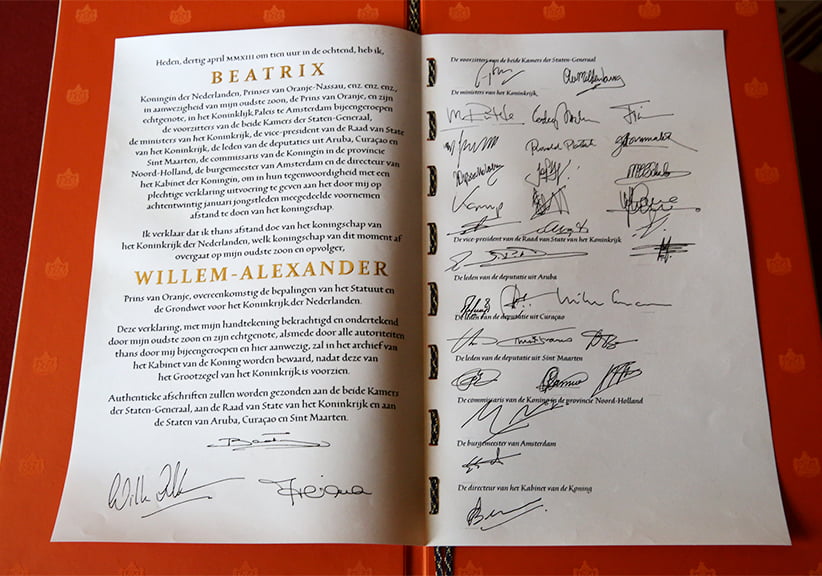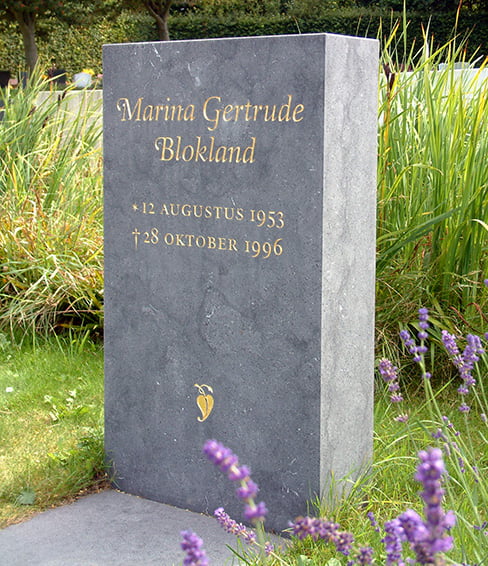
![]() Teaching in Museum Plantin-Moretus | Frank E. Blokland (Leiden, 1959) studied Graphic and Typographic Design at the Royal Academy of Art (kabk) in The Hague from 1978 to 1983. As a student, he set up the Letters] working group, of which many now well-known Dutch type designers were members. Blokland’s ideas about typography are clear: ‘Typography means more than bringing order to the passing on of information; it means elevating to the sublime the mould in which the process of passing on is cast.’ | ||||||||||||||||||||||||||||||||||||
![]() Bulthuismonument (1986) | |||||||||||||||||||||||||||||||||||||
In 1985, Blokland was one of the winners of the annual type-design competition of the United States-based company Chartpak and his typeface Bernadette was published as a dry-transferfont by this company. A year later, he designed the Bulthuis Monument (Bergum, Friesland), including the lettering, on behalf of the æsthetic-design department of the Dutch Post. | |||||||||||||||||||||||||||||||||||||
![]() House number chiselled in bluestone | |||||||||||||||||||||||||||||||||||||
![]() Bluestone gravestone finished with gold leaf | |||||||||||||||||||||||||||||||||||||
Paperweight (design for Sem Hartz) | |||||||||||||||||||||||||||||||||||||
Blokland wrote the book for the television course Calligraphy, the Art of Writing in 1990; 16.000 copies of this book went over the counter. Furthermore, since the eighties he has written approximately 150 articles on type design and font production for various graphic and design magazines, such as Compres, Pers, PrintBuyer, Hamburger Satzspiegel, and Page.
Teaching first year students in the Graphic Design department of the kabk
Teaching type design to second and third year students in the kabk LetterStudio
Teaching calligraphy to second and third year students in the kabk LetterStudio
With a 19th-century type mould in Museum Plantin-Moretus
Talk during the annual academic meeting of the Plantin Institute in 2019
Presentation of an Expert class Type design diploma in 2019
Speech at the EcTd graduation ceremony in 2022 In 1995, Blokland was invited to lecture at the Plantin Society’s Plantin Institute of Typography in Antwerp. He taught the regular Saturday course and, for over 15 years, the Expert class Type design, shaping both the content and structure of which he designed. In close collaboration with his students, he spent much of his time in Antwerp researching the role of reproduction in the history of typography, as part of a unique educational program focused on standardization, systematization, and unitization in archetypal font production. On Sunday, September 21, 2025, he officially retired as senior lecturer from the Plantin Institute.
April 2013 Blokland designed the calligraphic lettering of H.M. Queen Beatrix’s Abdication Act. The letters on the act, in Humanistic Minuscule and Italic hand, with all their contextual letter variants, were written by Blokland and converted by himself into two digital fonts, Abdicatie Regular and Abdicatie Italic, using the dtl FontMaster tools. The text was subsequently silkscreened on parchment.
Abdication Act of Queen Beatrix (2013) On 11 October 2016 at 11:15 a.m. Blokland successfully defended his PhD dissertation On the Origin of Patterning in Movable Latin Type: Renaissance Standardisation, Systematisation, and Unitisation of Textura and Roman Type at Leiden University.
Promotion ceremony in the beautiful Senate Chamber of Leiden University Blokland’s research was conducted to test the hypothesis that Gutenberg and his peers developed a standardized and even unitized system for the production of textura type, and that this system was extrapolated for the production of roman type in Renaissance Italy. For this, Humanistic handwriting was fit on a fixed inrinsic pattern. Blokland receives the Laureateship Honoris Causa from the Plantin Institute On Saturday evening, June 25, 2022, the 70th anniversary of the Plantin Society / Plantin Institute of Typography was celebrated in the breathtaking historic setting of Museum Plantin-Moretus in Antwerp. During the atmospheric event, Blokland received the Honoris Causa Laureateship in recognition of his important achievements in the field of typography in Flanders. Explanation about a type mould during the Typography Summer School 2022
Blokland flanked by EcTd 2023 graduates in the courtyard of Museum Plantin-Moretus
Teaching EcTd 2024–2025 students under the roof of Museum Plantin-Moretus | |||||||||||||||||||||||||||||||||||||
The roman of the | |||||||||||||||||||||||||||||||||||||